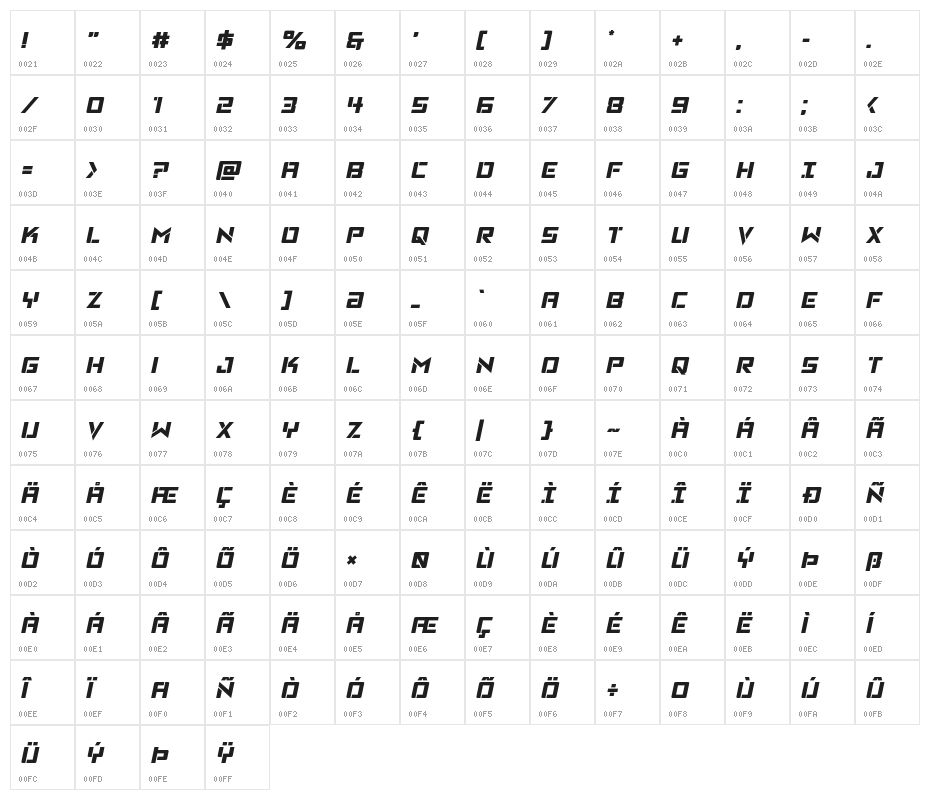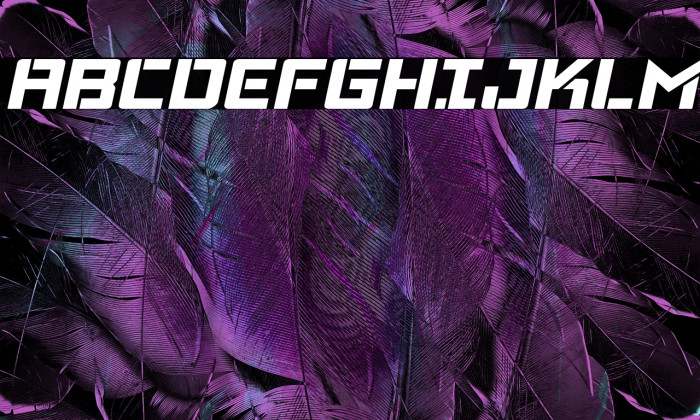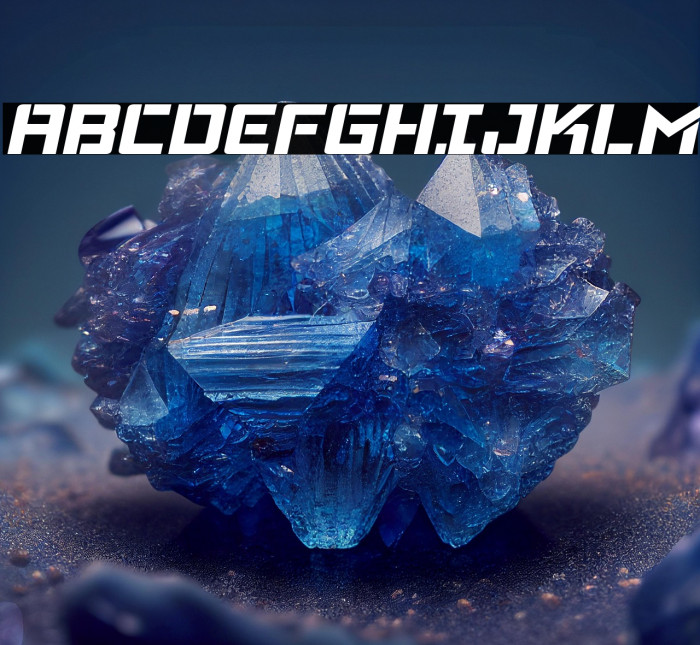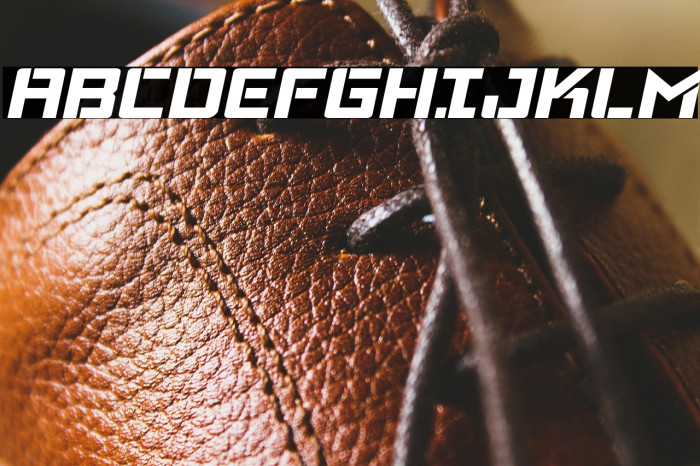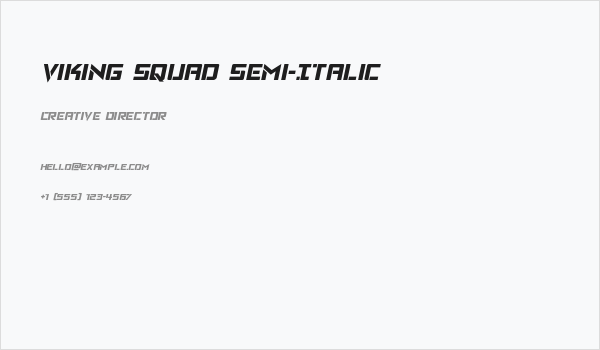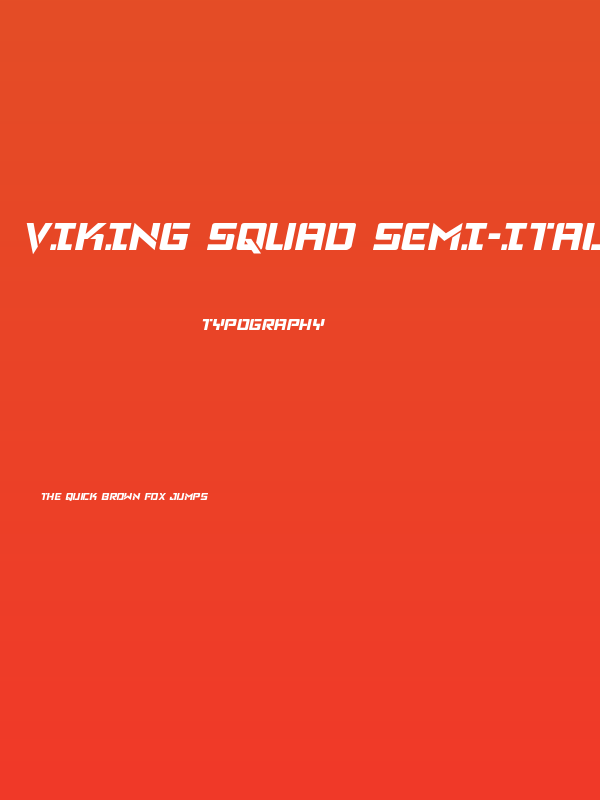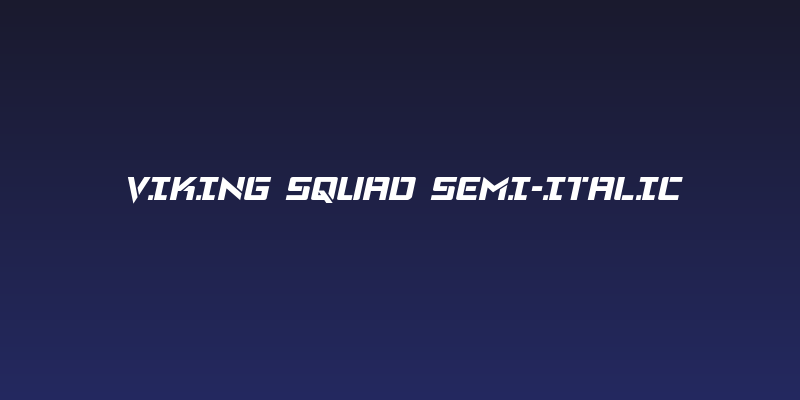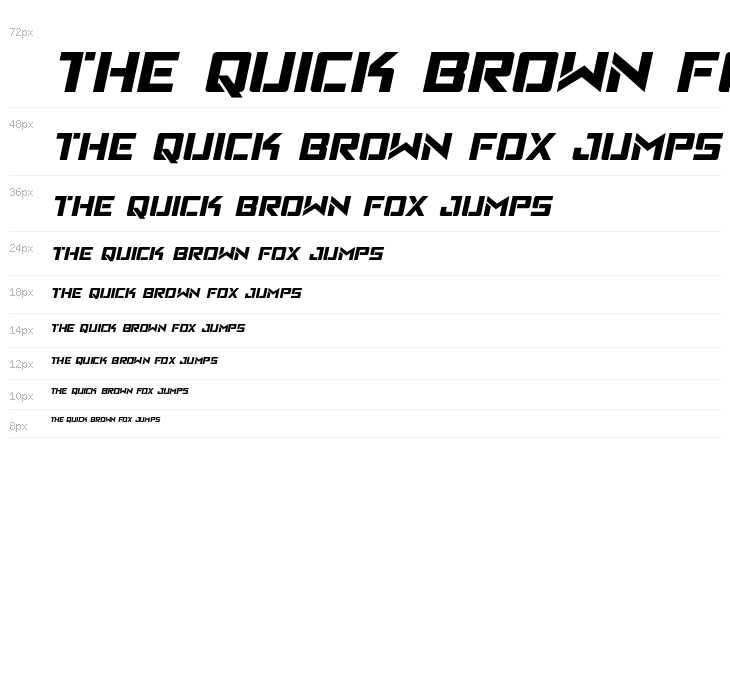
Viking Squad Semi-Italic Font
Viking Squad Semi-Italic Description
This font features a bold, angular design with a futuristic and dynamic appearance. The characters are slightly italicized, giving them a sense of motion and energy. The uppercase letters are particularly striking, with sharp edges and a geometric style that suggests strength and modernity. The lowercase letters maintain the same angular aesthetic, ensuring consistency across the typeface. Numbers and special characters are designed to match the bold and assertive style of the alphabet, making this font suitable for attention-grabbing headlines or branding. The overall look is both modern and slightly aggressive, ideal for projects that require a strong visual impact.
| Proposed Projects | Ideal for sports branding, video game titles, sci-fi movie posters, and dynamic advertising campaigns. |